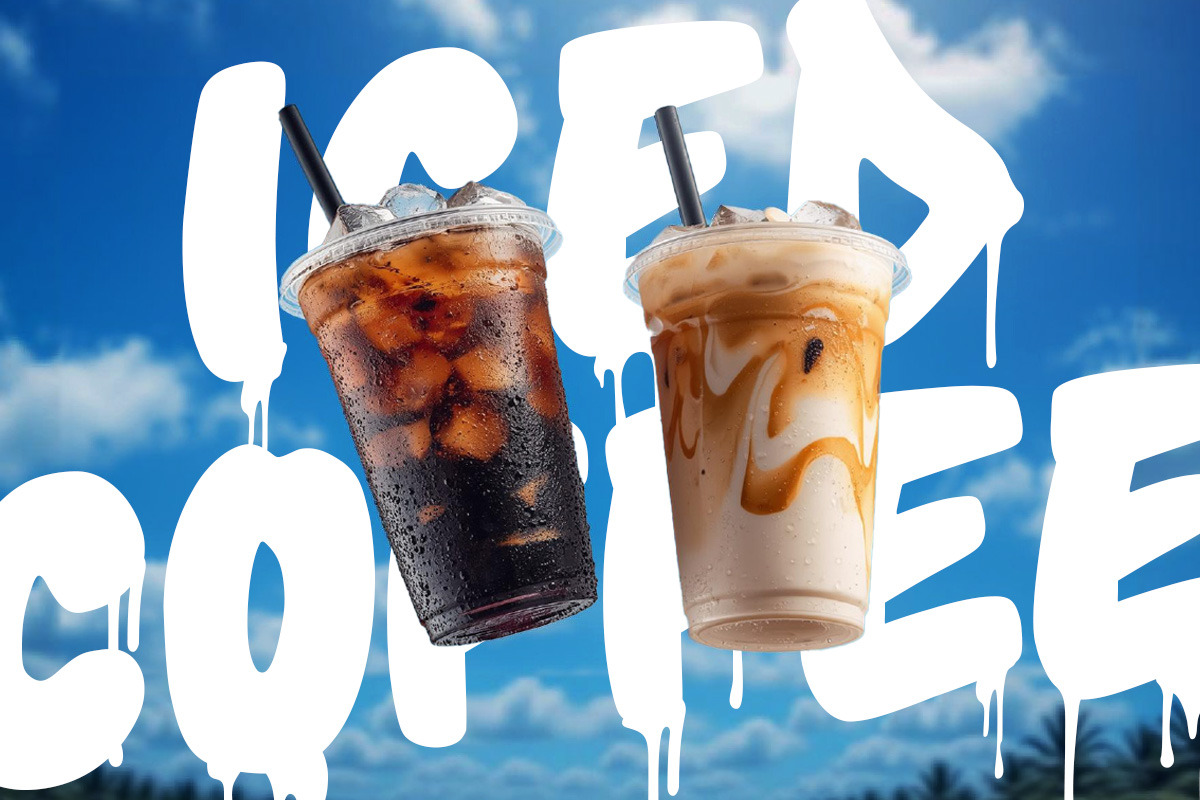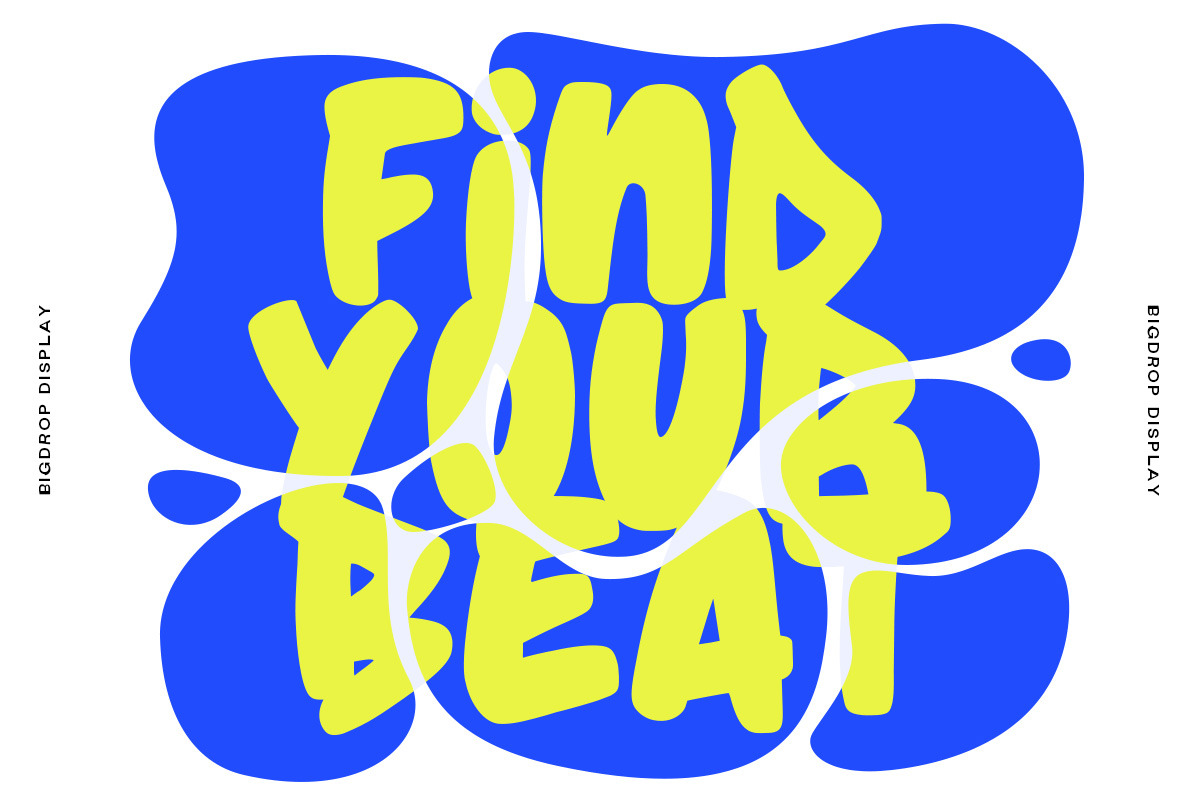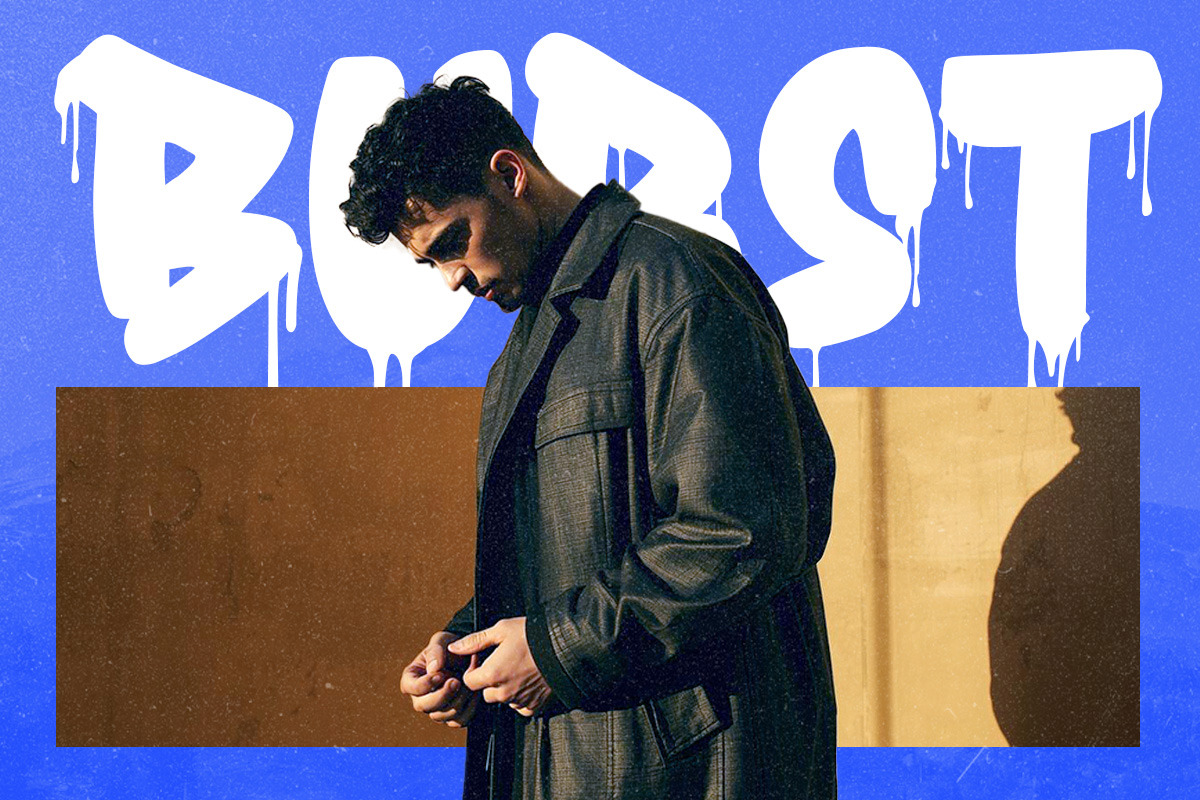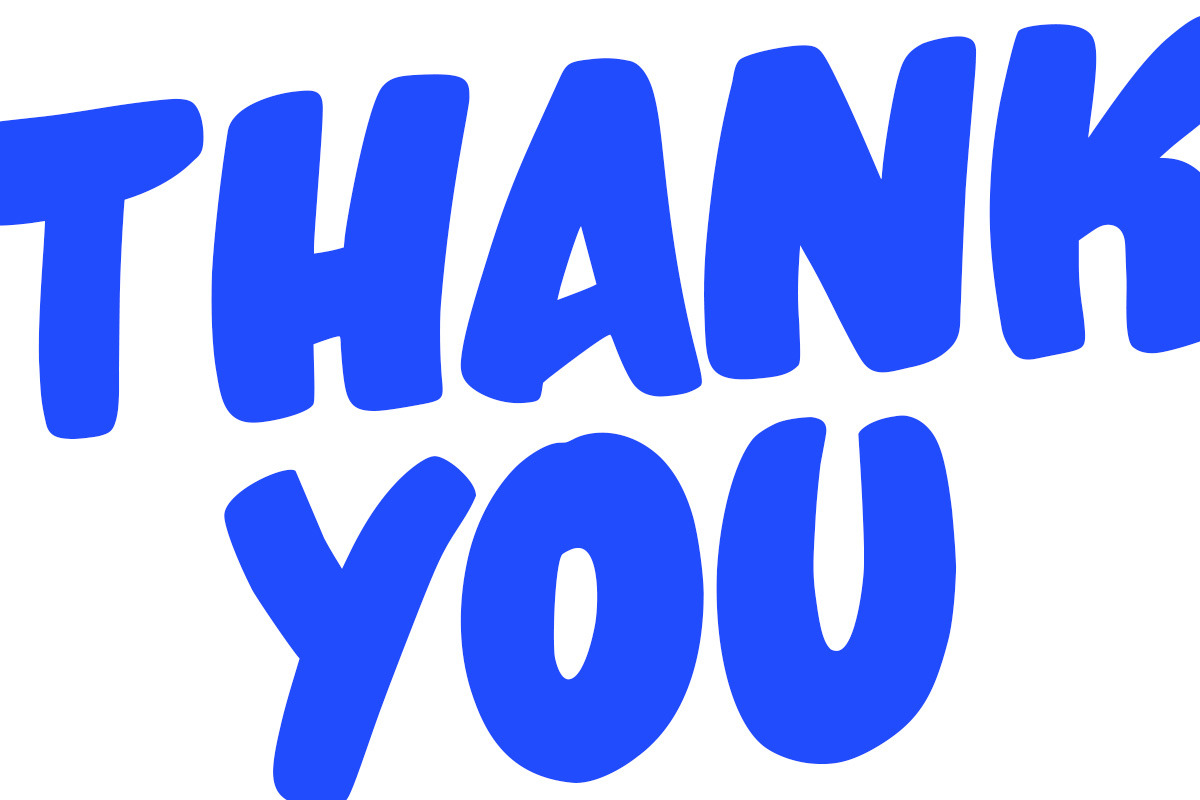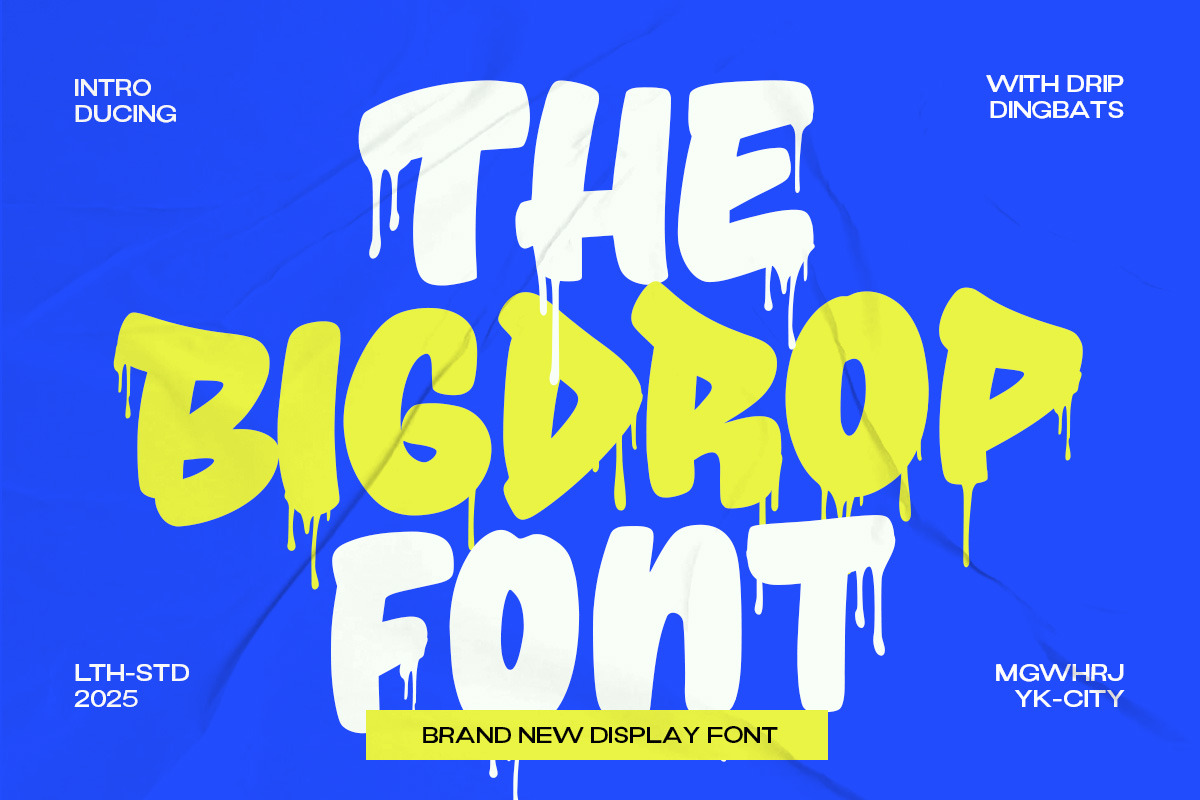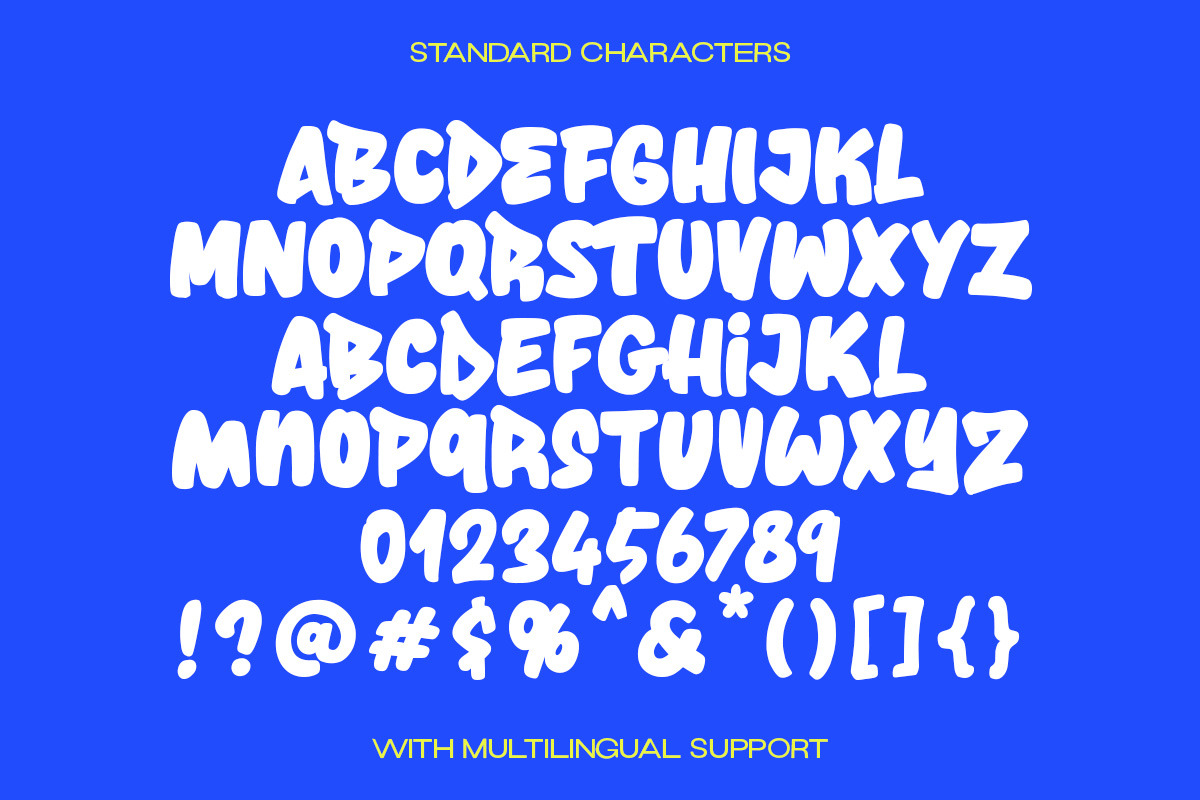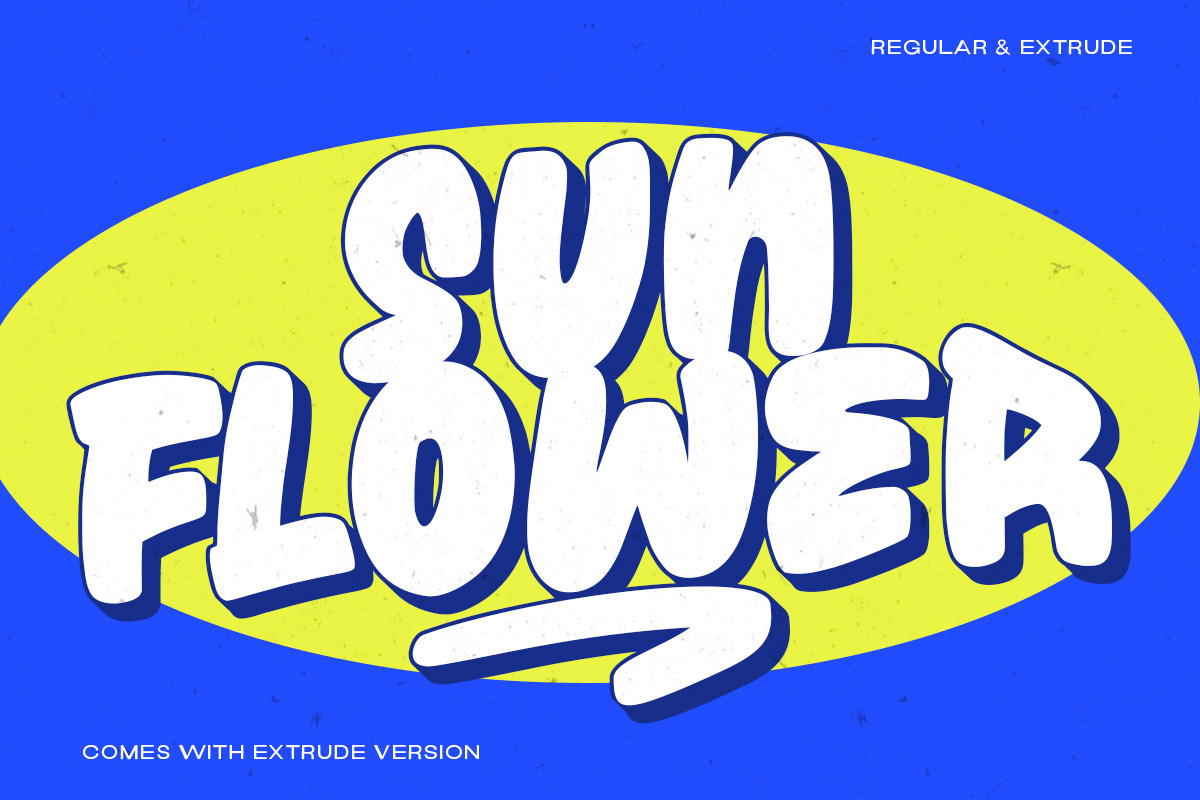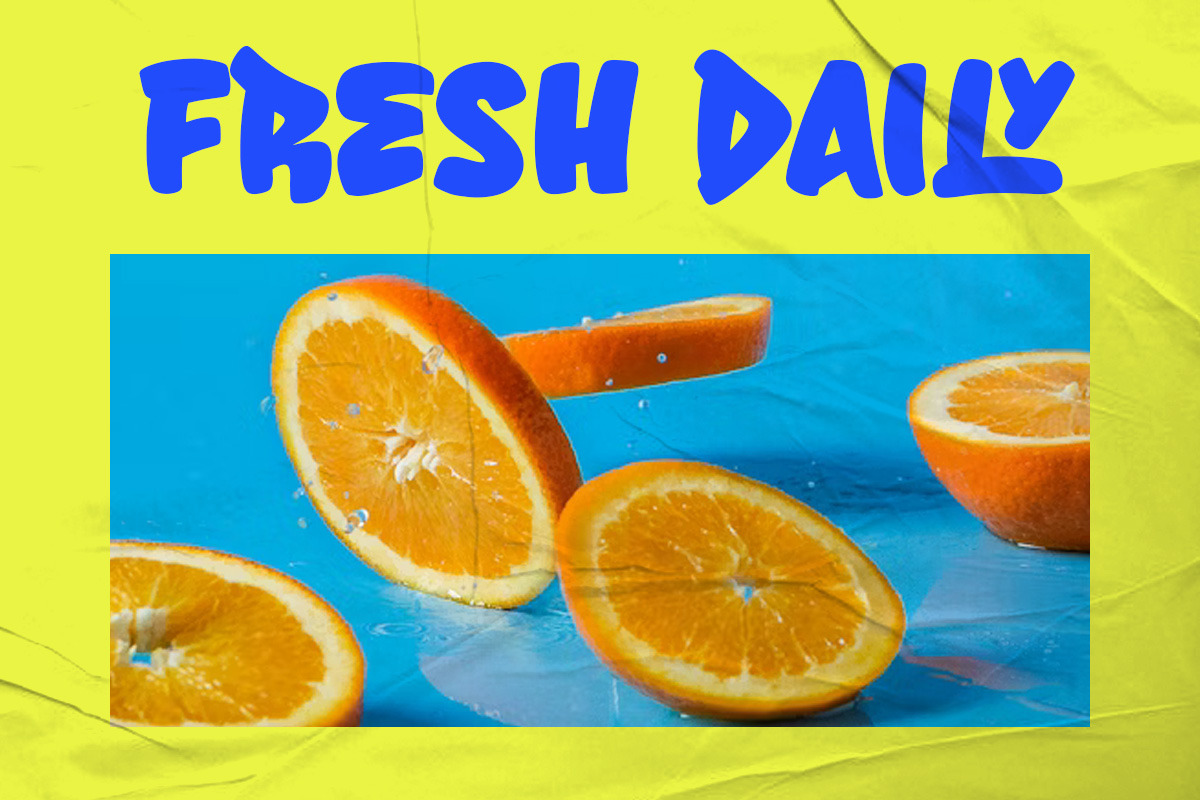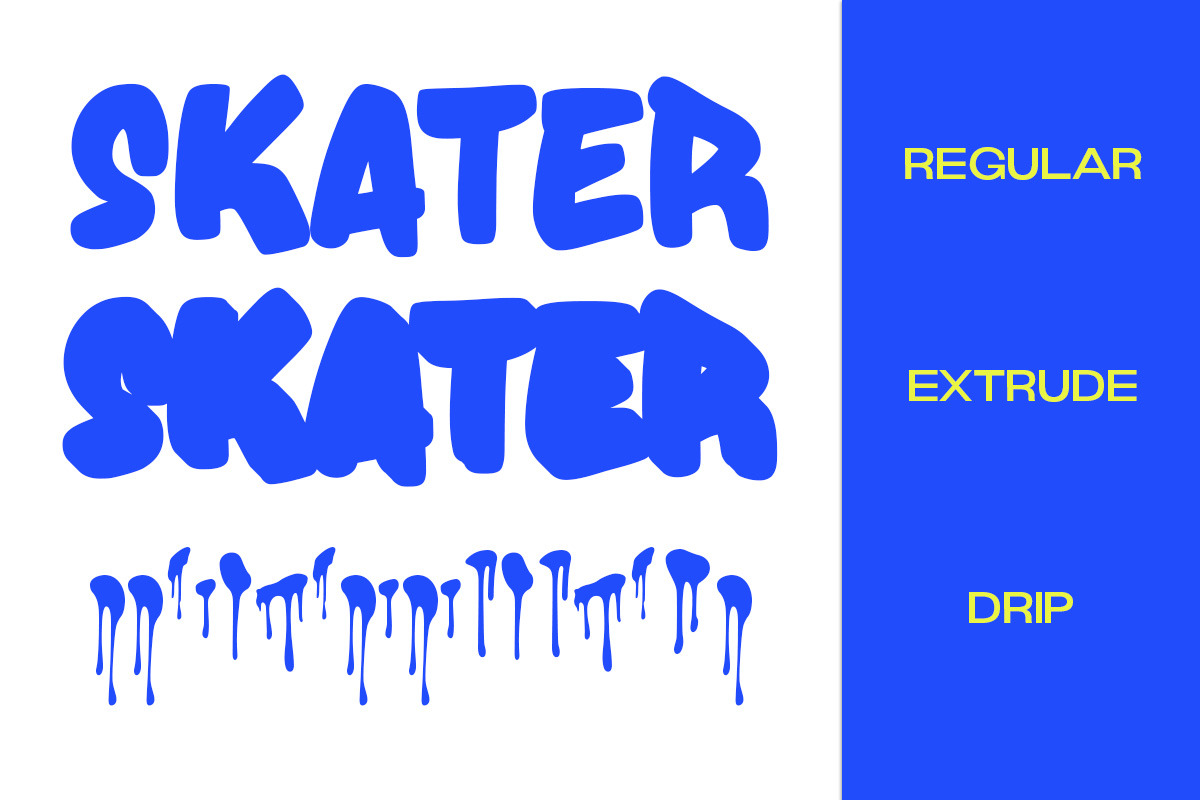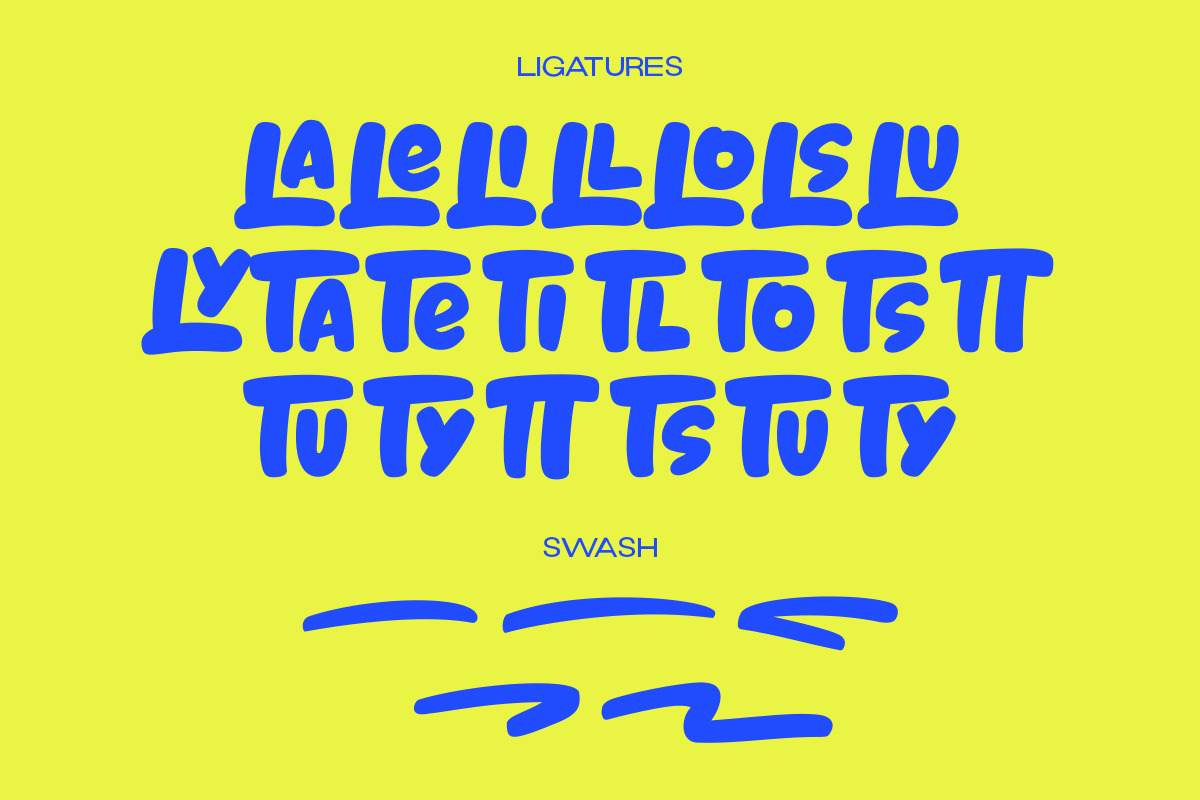
The Big Drop Graffiti Font
The Big Drop font splashes onto the scene with a loud, graffiti-inspired attitude—chunky letterforms, gooey drip details, and a playful street-art edge that instantly grabs attention. Its bold curves and melting shapes create a sense of motion and rebellion, making it perfect for loud headlines, youth-centric branding, creative posters, edgy merchandise designs, and anything that needs a punch of urban character.